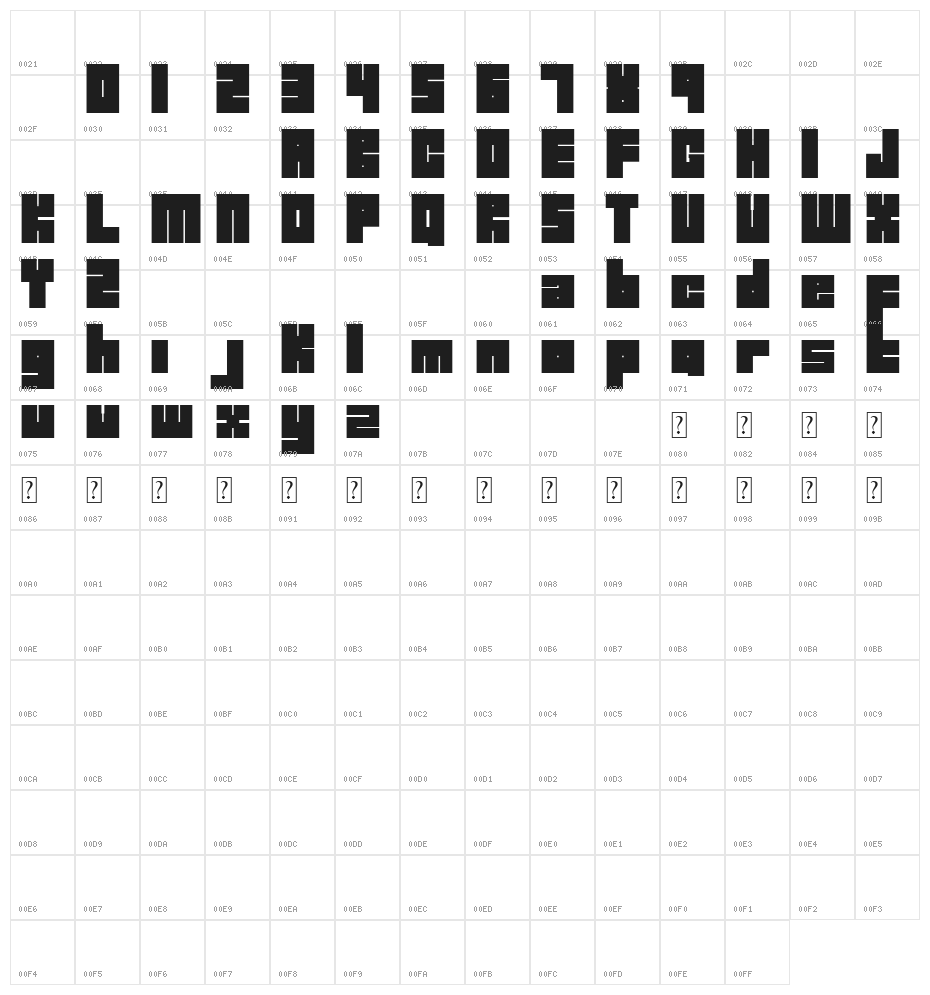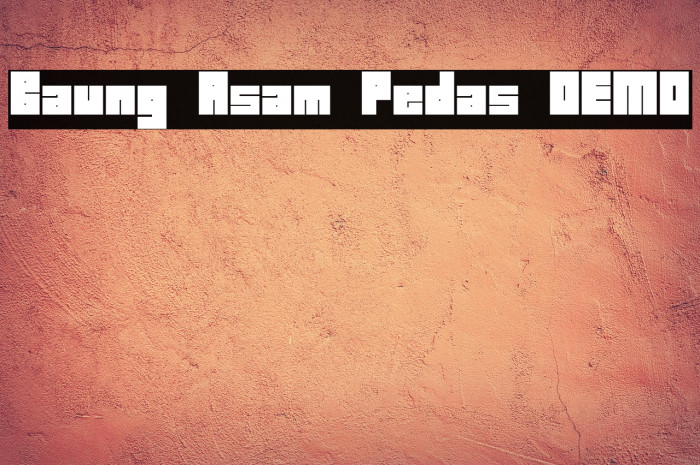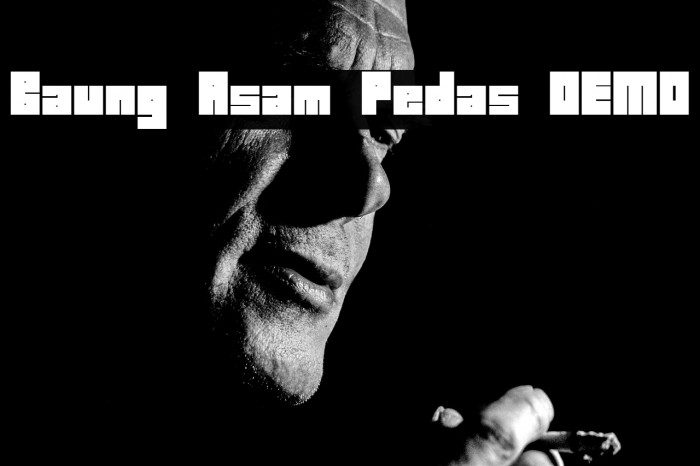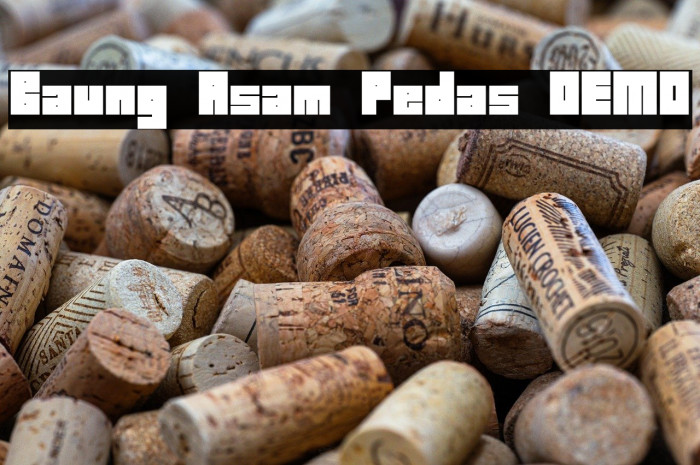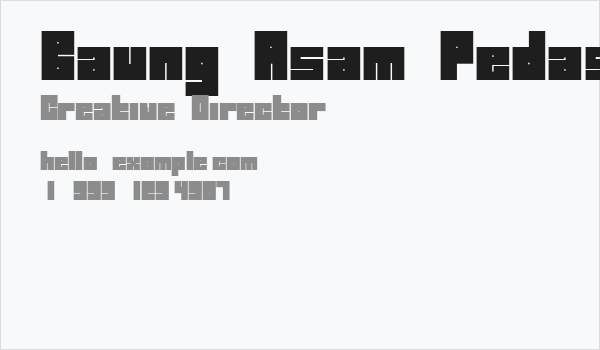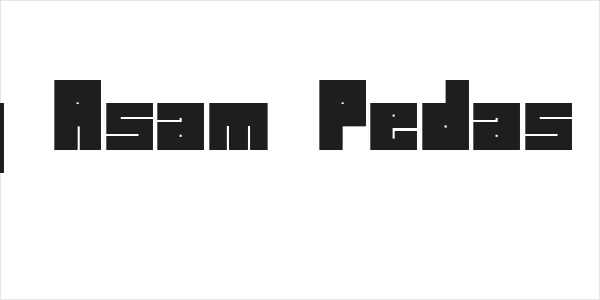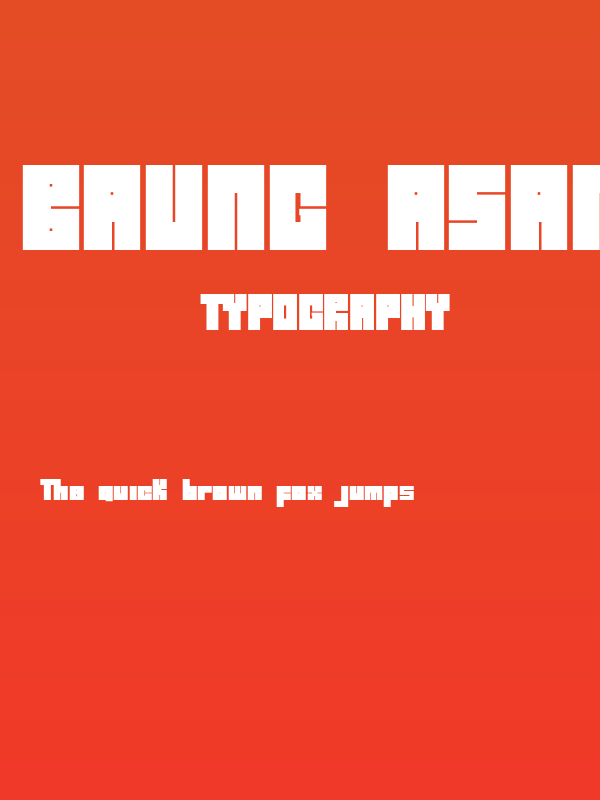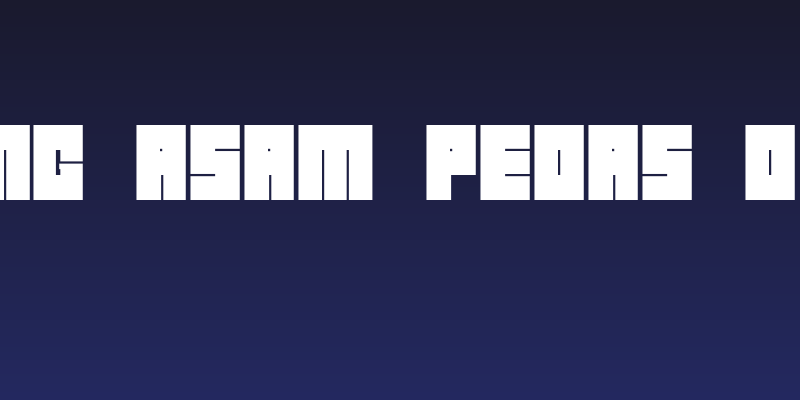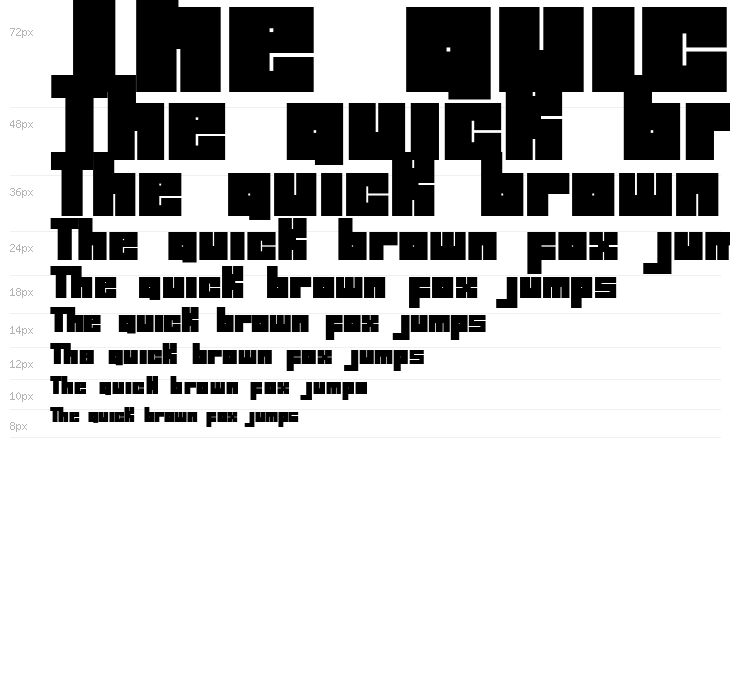
Baung Asam Pedas DEMO Font
Baung Asam Pedas DEMO Description
This font features a bold, geometric design with a strong emphasis on rectangular shapes. Each character is constructed with thick, uniform strokes, creating a sense of solidity and impact. The uppercase and lowercase letters maintain a consistent blocky appearance, while the numerals and special characters follow the same structural design. The font's overall aesthetic is modern and assertive, making it suitable for projects that require a strong visual presence. Its unique style is both eye-catching and memorable, ideal for making a statement.
| Proposed Projects | Ideal for posters, headlines, logos, and branding materials that require a bold and modern look. |